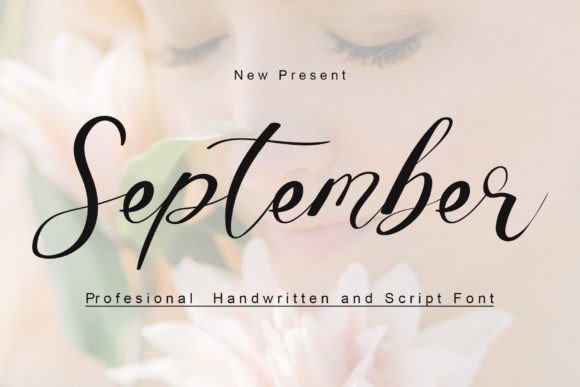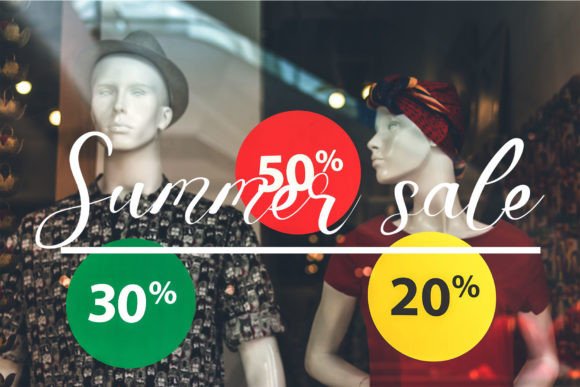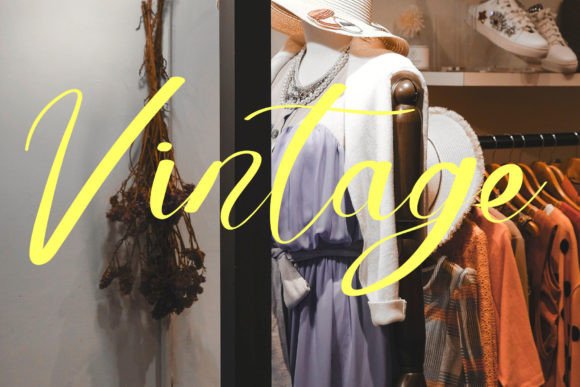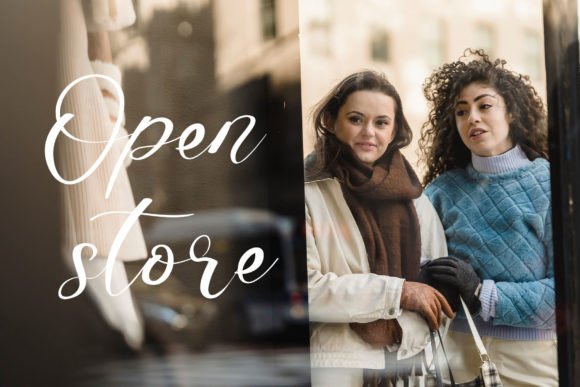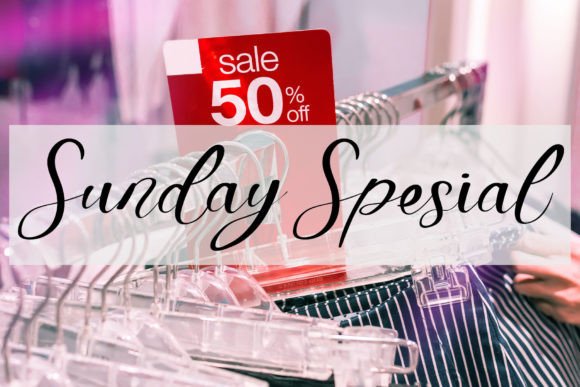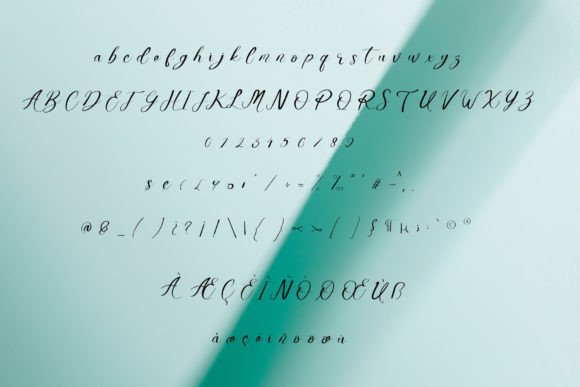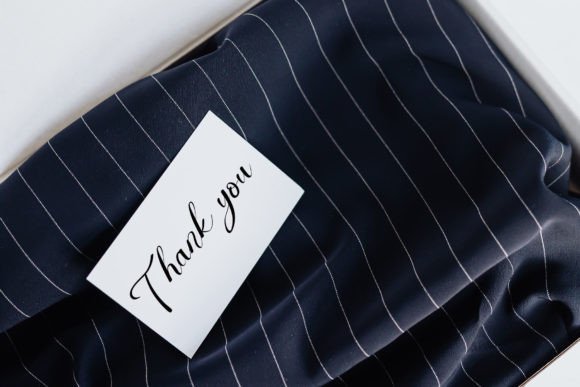
September Font
About September Font
September is a delightful and beautiful handwritten font that adds a sweet touch to your design projects. With characters that dance along the baseline, this font brings a unique and playful quality that can elevate any creative endeavor. Whether you’re working on invitations, branding, posters, or any design project, September introduces a touch of luxury that enhances the overall aesthetic.
The dancing characters in September contribute to a sense of movement and fluidity, making it a perfect choice for projects that seek to convey a dynamic and lively atmosphere. The handwritten charm adds a personal and authentic touch, enhancing the connection with the audience.
This font’s versatility allows it to seamlessly adapt to various design contexts. From elegant invitations to upscale branding, September brings a luxurious spark that captivates the viewer. Its beauty lies in its ability to infuse a sense of sophistication without sacrificing the warmth and approachability of handwritten elements.
As you incorporate September into your design projects, you’ll discover its potential to transform ordinary text into a visually enchanting experience. This font is not just a tool; it’s an artistic asset that brings a sweet and beautiful quality to your creations, making them stand out with a touch of luxury.
In summary, September is a font that dances with charm and elegance, making it an excellent choice for those who want to add a delightful and luxurious spark to their design projects. Let September be the enchanting element that elevates the beauty of your creations.